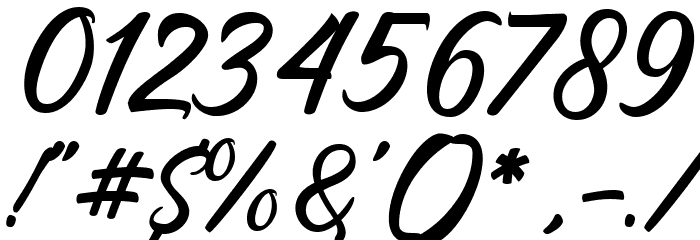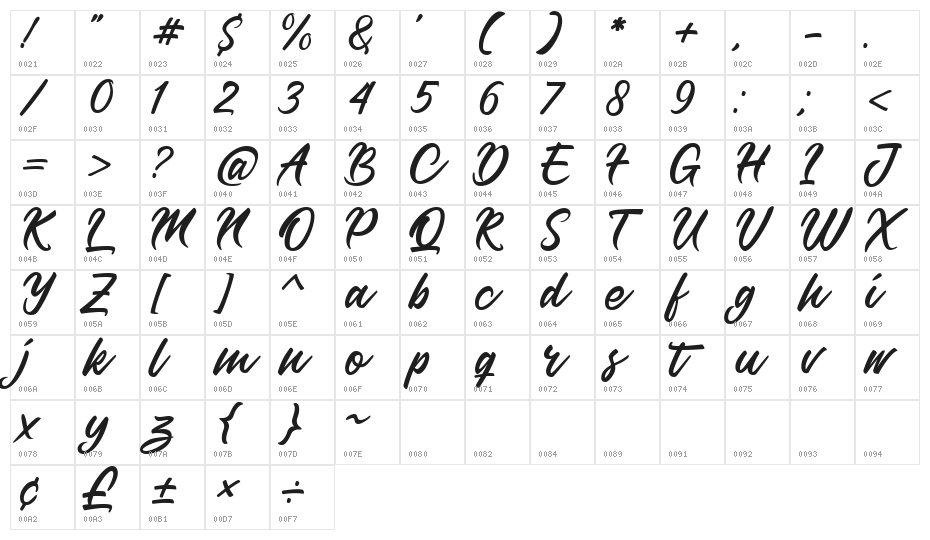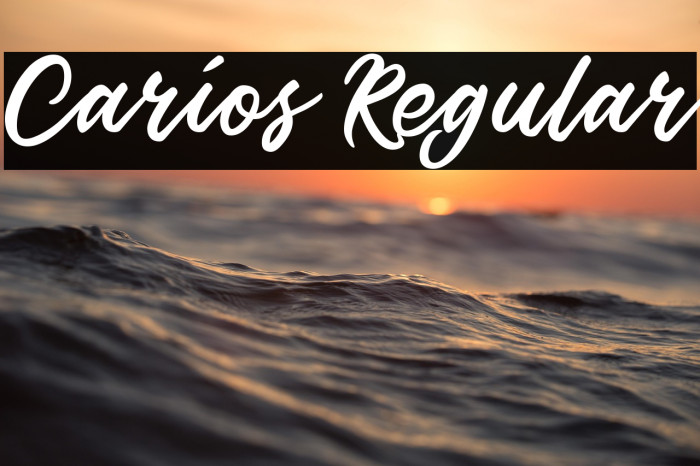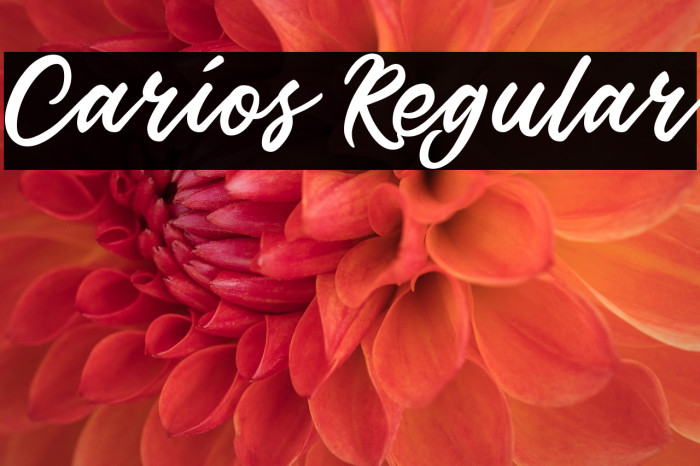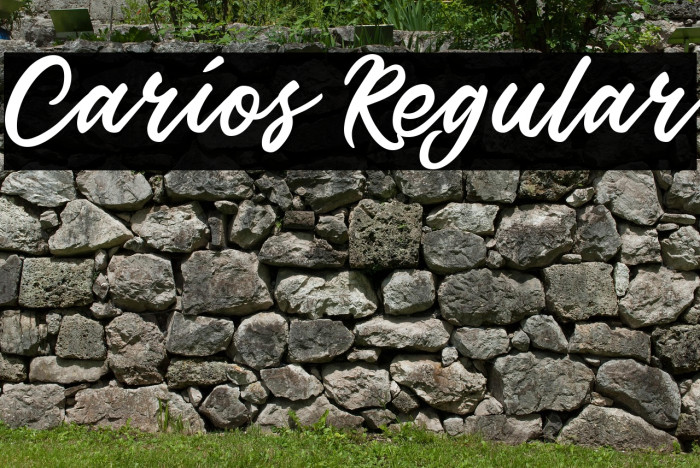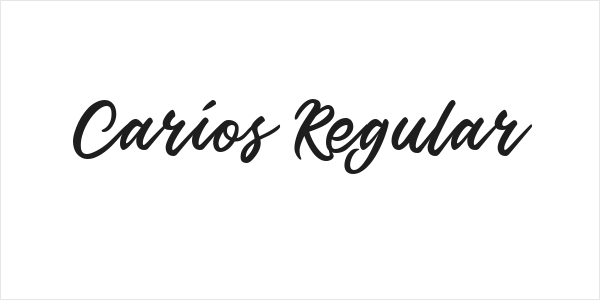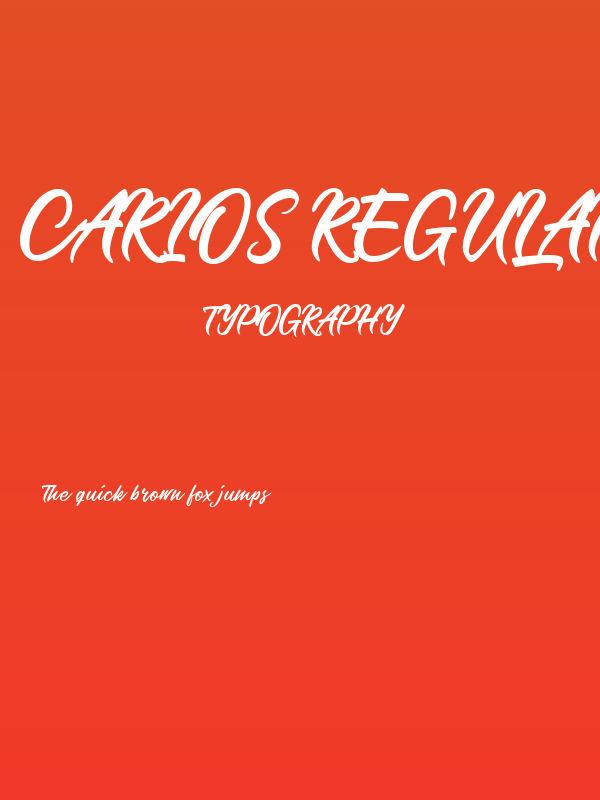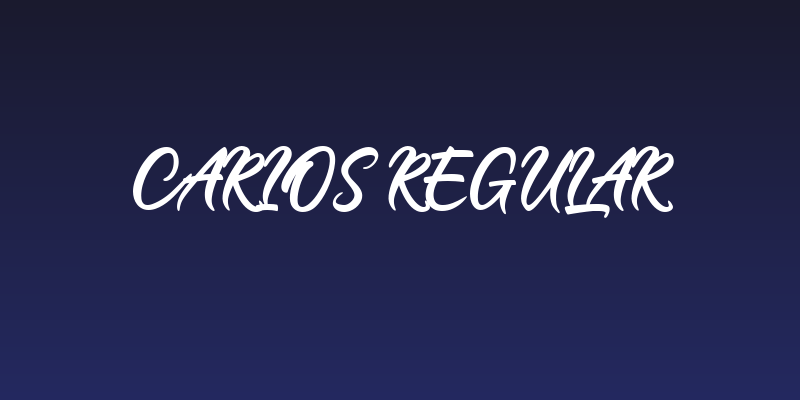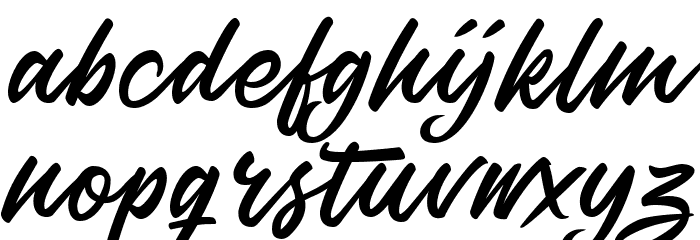
Carios Regular Font
Carios Regular Description
This font features a dynamic and fluid script style, characterized by its elegant, flowing strokes and a sense of movement. The letters are connected in a cursive manner, giving it a handwritten appearance. The uppercase letters are bold and prominent, while the lowercase letters maintain a consistent flow. The numbers and special characters are designed to match the overall script style, ensuring uniformity across all characters. This font exudes a sense of sophistication and creativity, making it ideal for projects that require a personal touch.
| Proposed Projects | Ideal for wedding invitations, greeting cards, branding projects, and any design that requires a personal, elegant touch. |